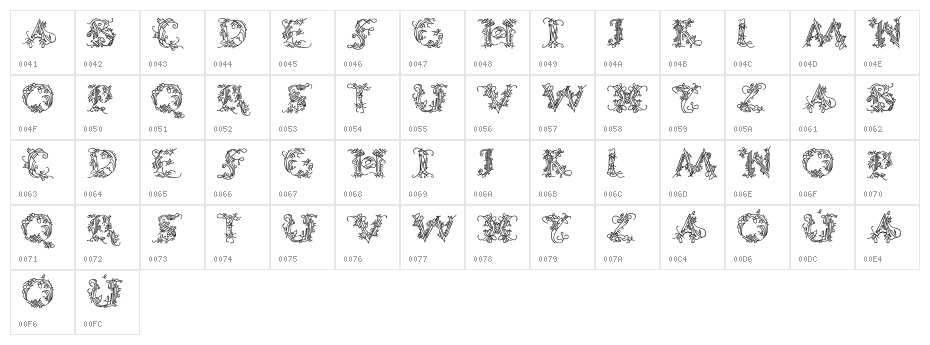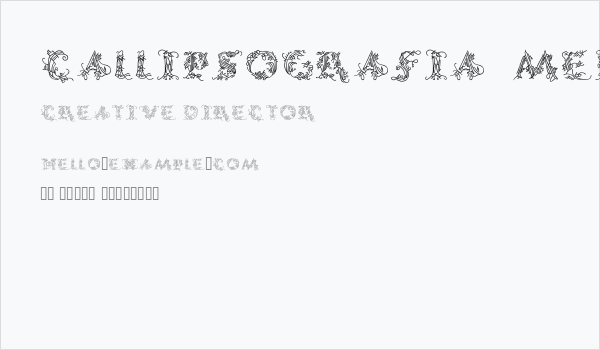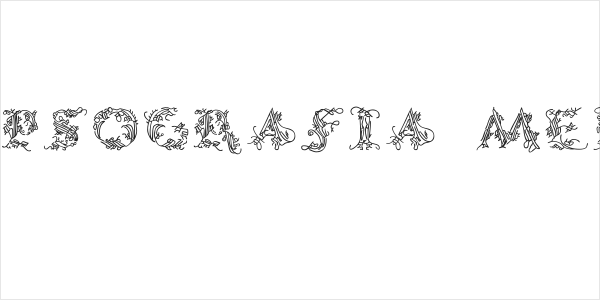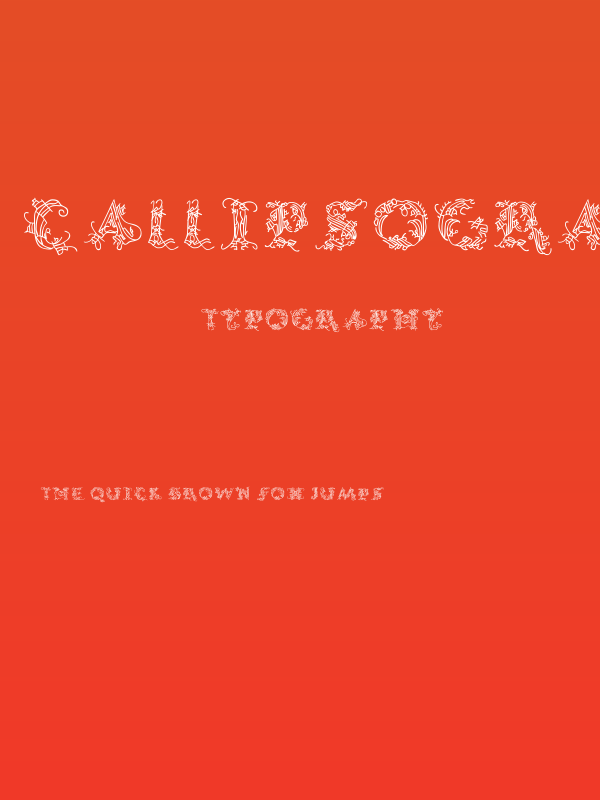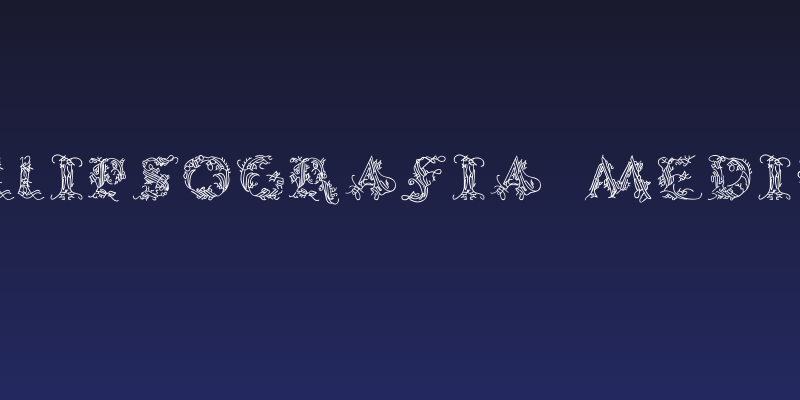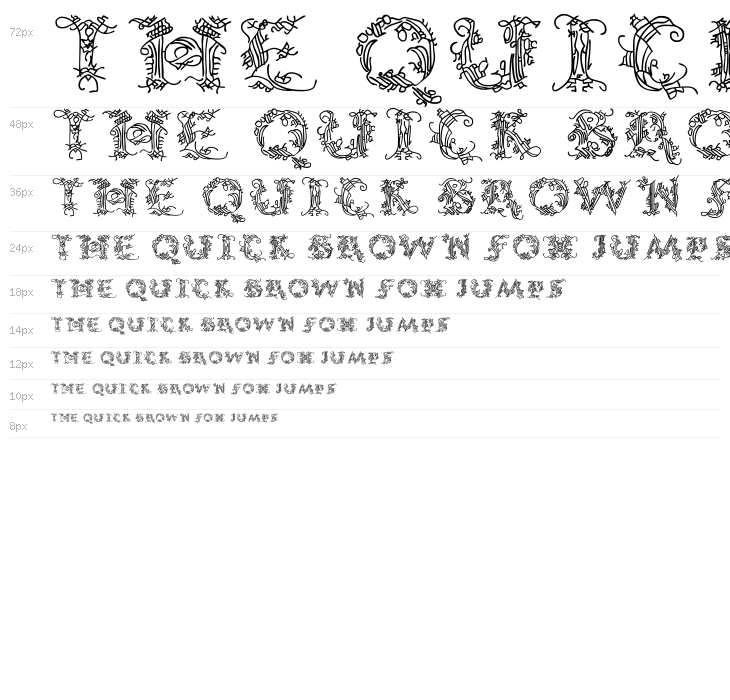
CalliPsoGrafia Medium Font
CalliPsoGrafia Medium Description
This font is an intricate and decorative typeface that features elaborate floral and vine-like embellishments integrated into each letterform. The uppercase letters are particularly ornate, with swirling patterns that give a sense of elegance and sophistication. The lowercase letters maintain a similar style, ensuring consistency across the typeface. The overall design is reminiscent of vintage calligraphy, making it suitable for projects that require a touch of classical beauty. The characters are well-defined, with a medium weight that balances the decorative elements without overwhelming the viewer.
| Proposed Projects | Ideal for wedding invitations, luxury branding, vintage-themed posters, and decorative book covers. |